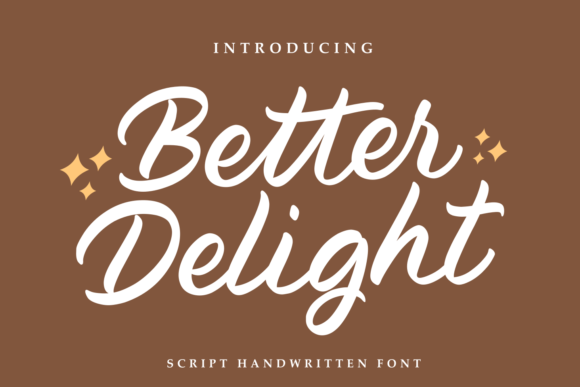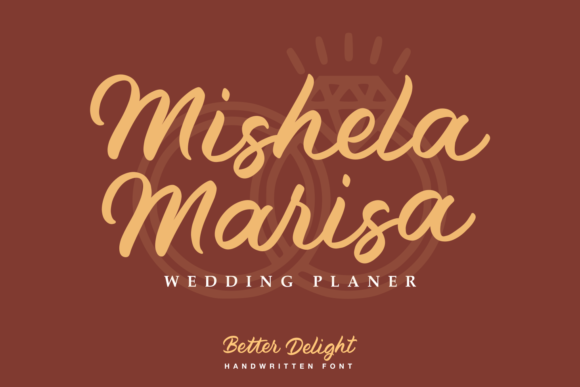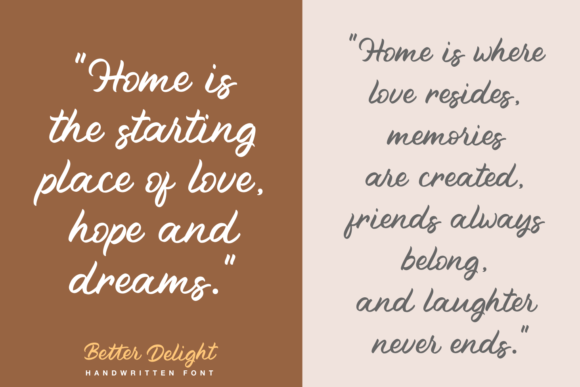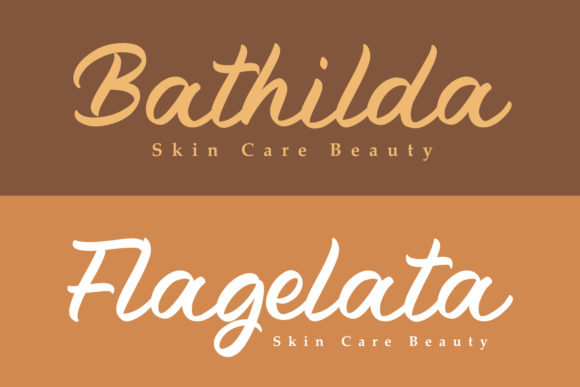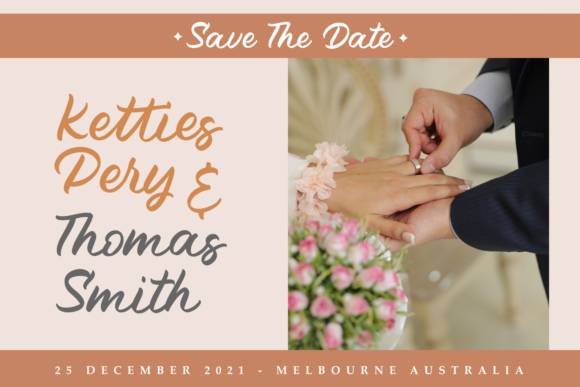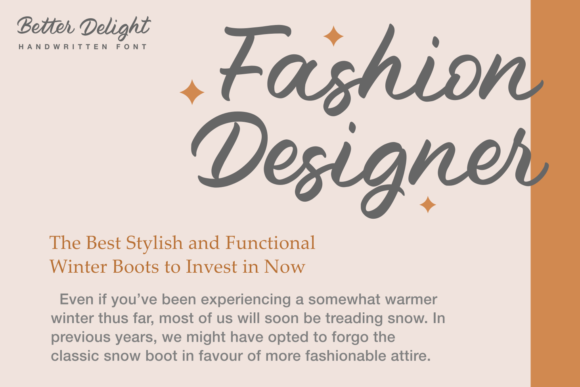
Unleash Your Creativity with Better Delight Font
Have you ever stared at a blank canvas, waiting for inspiration to strike? You’re not alone. As creatives, we’ve all been there, searching for that perfect spark to bring our ideas to life. For many of us, the right font can be the difference between a good design and a great one.
Enter the Better Delight Font, a beautifully crafted handwritten font that exudes simplicity and elegance. Whether you’re working on a wedding invitation, a photography project, or a business card, this font is sure to add a touch of class to your design. With its versatility and timeless appeal, the Better Delight Font is a valuable addition to any designer’s toolkit.
Better Delight Font Key Features
- Font Family: Better Delight Font offers a family of 6 fonts, each with its unique style and flair.
- Unique Characteristics: Better Delight Font boasts a distinctive, hand-drawn feel with subtle texture and imperfections, adding a touch of warmth and personality to any design.
Better Delight Font Review
Overall, I’d say the Better Delight Font is a decent choice for a fun, playful font. Here’s what I like about it: ✨
- Whimsical feel: The font has a unique, hand-drawn quality to it that adds a touch of personality to any design.
- Variety of weights: The font family comes in multiple weights, from light to bold, which gives designers flexibility in their typography choices.
- Good legibility: Despite its playful nature, the font remains easy to read, even at smaller font sizes.
- Limited support for special characters: The font may not include all the special characters you need, which can be a problem for international designs or projects that require a lot of punctuation.
- May not be suitable for formal designs: The font’s playful, whimsical feel may not be the best choice for formal or professional designs, where a more traditional font is often preferred.
Overall, I think the Better Delight Font is a solid choice for designers who want to add a touch of personality to their work. It’s not perfect, but it’s a great option for fun, creative projects.
Getting the Most Out of Better Delight Font
The Better Delight Font is ideal for:
• Branding and logo design
• Packaging and label design
• Editorial and publishing design
• Digital and print marketing materials
Tips for Getting the Most Out of Better Delight Font
• Pair the font with complementary colors and styles to create visually appealing designs.
• Experiment with different font sizes and weights to add depth and hierarchy to your designs.
• Use the font in combination with graphics and images to create engaging and interactive designs.
Ostrich Sans is a modern sans-serif font designed for digital use. It’s ideal for creating clean and minimalistic designs, especially in user interfaces, apps, and websites. Compared to Better Delight Font, Ostrich Sans is more versatile and suitable for a wider range of designs, from corporate to creative projects.
Lato is a sans-serif font with a humanistic touch, making it perfect for body text and titles. It’s highly legible and suitable for both digital and print designs. Lato is a more elegant alternative to Better Delight Font, with a softer feel and more subtle flair.
Montserrat is a geometric sans-serif font inspired by the urban environment of Buenos Aires. It’s ideal for creating bold and modern designs, especially in titles and headlines. Compared to Better Delight Font, Montserrat is more dramatic and attention-grabbing, making it perfect for branding and advertising projects.